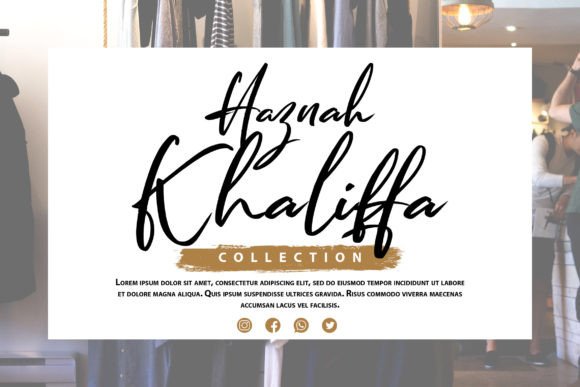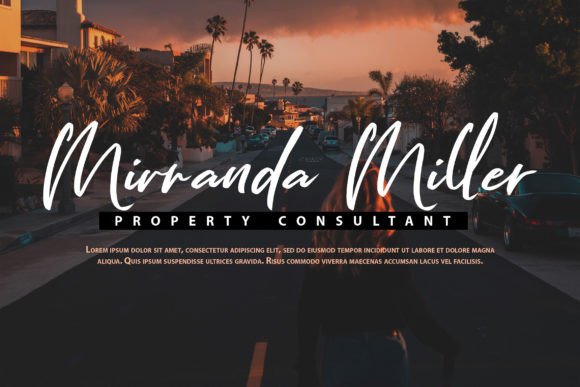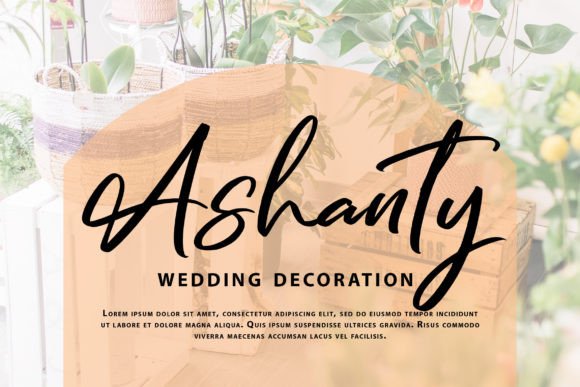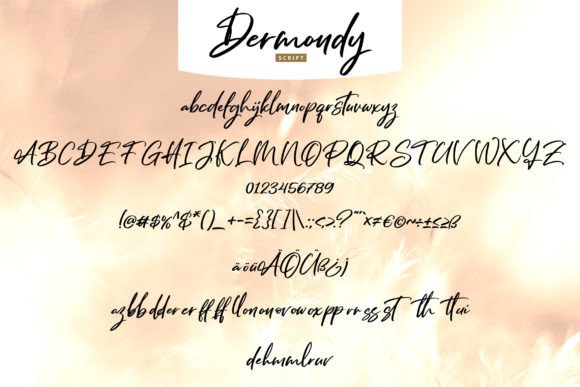
Introducing Dermondy Font: A Timeless Handwritten Masterpiece
Are you on the hunt for a font that can elevate your design game and make your creations stand out? Look no further than Dermondy Font, a lovely and timeless handwritten font that is sure to capture the hearts of designers and crafters alike. With its unique and beautiful touch, Dermondy is the perfect choice for creating eye-catching logos, branding, and quotes that demand attention.
The Charm of Dermondy Font
Dermondy Font boasts a distinctive, handcrafted feel that sets it apart from other fonts. Every letter has been carefully designed to showcase a unique and beautiful touch, which will make your design come alive! The font’s elegant strokes, subtle imperfections, and flowing connections create a sense of movement and fluidity, making it perfect for designs that require a personal touch.
One of the standout features of Dermondy Font is its PUA (Private Use Area) encoding. This means that you can access all the glyphs and ligatures with ease, giving you complete creative control over your design. With PUA encoding, you can effortlessly navigate the font’s extensive character set, including alternative letters, swashes, and ornaments, to create stunning designs that showcase your creativity.
Dermondy’s versatility knows no bounds, making it an excellent choice for a wide range of design projects. Whether you’re creating:
- Eye-catching logos that make a lasting impression
- Branding materials that reflect your company’s personality
- Quotes that inspire and motivate
- Social media graphics that stop scrollers in their tracks
- Packaging designs that pop
Dermondy Font is the perfect companion to help you achieve your design goals. Its unique character and timeless charm ensure that your creations will stand out in a crowded design landscape.
Why Choose Dermondy Font?
With so many fonts available, why choose Dermondy? Here are just a few reasons why designers and crafters are falling in love with this beautiful handwritten font:
- Unique character: Dermondy’s distinctive style sets it apart from other fonts, ensuring your designs will be instantly recognizable.
- Timeless appeal: Unlike trendy fonts that quickly go out of style, Dermondy’s classic charm ensures it will remain a design favorite for years to come.
- Ease of use: With PUA encoding, you can easily access all the glyphs and ligatures, making design a breeze.
- Versatility: Dermondy is suitable for a wide range of design projects, from logos and branding to quotes and social media graphics.
Dermondy Font is a true design gem, offering a unique blend of timeless charm and creative freedom. Whether you’re a seasoned designer or a crafting enthusiast, this beautiful handwritten font is sure to inspire your next project. With its PUA encoding, elegant strokes, and endless design possibilities, Dermondy Font is the perfect choice for anyone looking to elevate their design game and create stunning creations that leave a lasting impression.